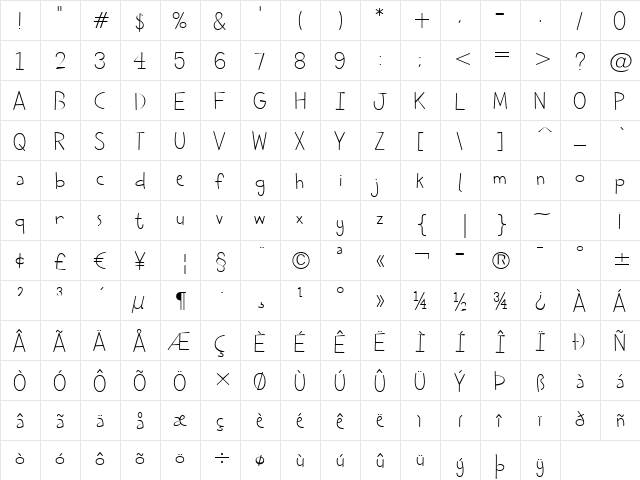
Cheddar Salad BTN Lt Regular
Design Context for Cheddar Salad BTN Lt Typeface
Cheddar Salad BTN Lt is a composed and adaptable typeface that performs quietly and consistently across a wide range of design contexts. Its slender proportions lend an understated elegance to any composition.